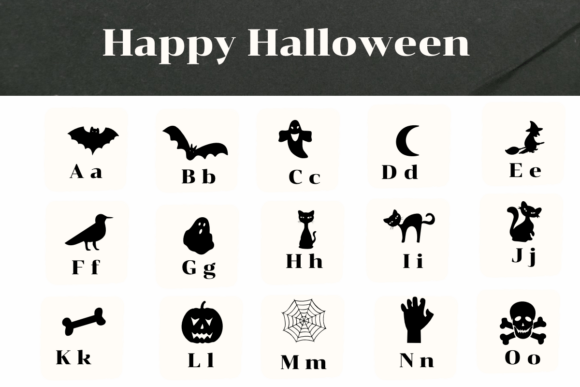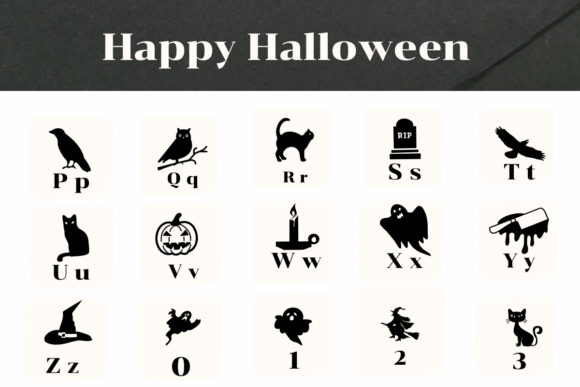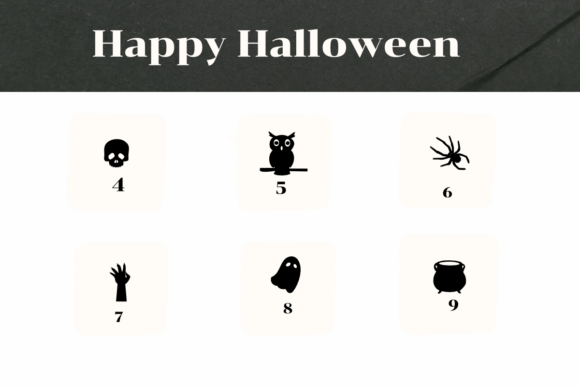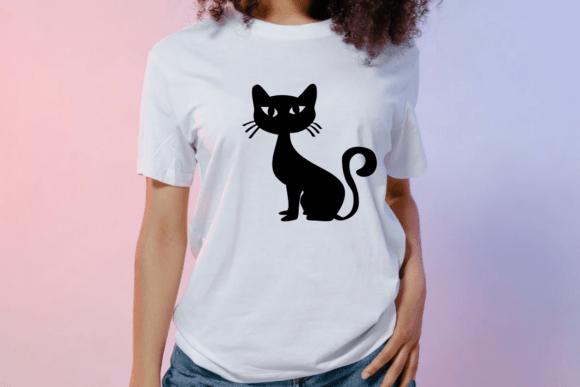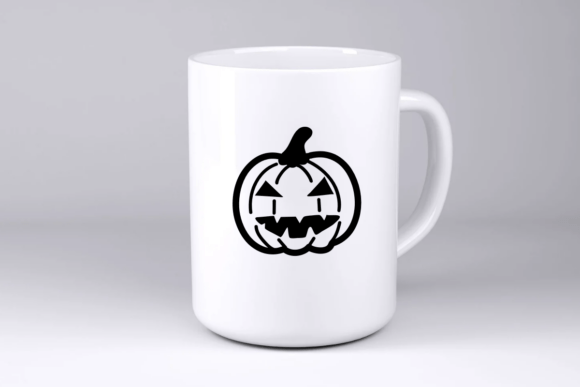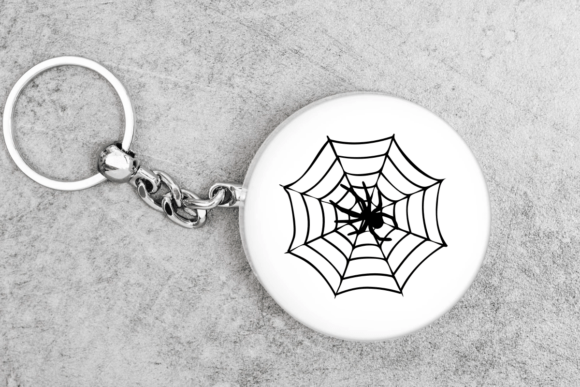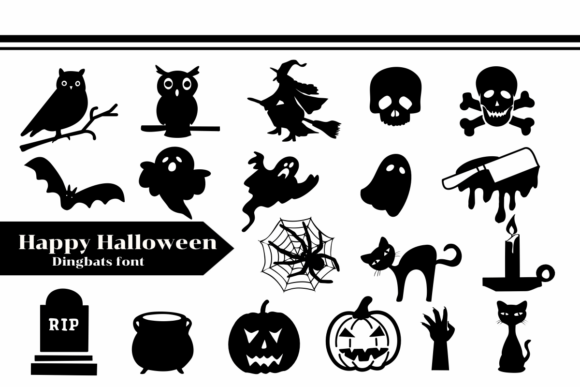
Happy Halloween Font: Elevate Your Seasonal Designs with Spooky Elegance
As the spookiest time of the year approaches, designers and crafters are on the lookout for the perfect elements to infuse their projects with a festive spirit. Introducing the Happy Halloween Dingbats Font, a curated collection of high-contrast vector glyphs designed to bring a touch of seasonal charm and creative flexibility to your work. This versatile font is a game-changer for anyone looking to add a professional edge to their Halloween-themed designs, whether for print, digital, or craft projects.
Clean and Versatile Design
The Happy Halloween Dingbats Font boasts clean, silhouette-style artwork with a sharp visual profile, making it optimized for both print and digital use. Each glyph is meticulously designed with consistency in stroke weight and visual balance, ensuring clear legibility at a range of sizes. This attention to detail makes the font perfect for a wide array of applications, from large-scale posters to intricate digital scrapbooking.
A Broad Variety of Halloween Icons
What sets the Happy Halloween Dingbats Font apart is its extensive variety of Halloween icons. The set includes traditional symbols of the season such as pumpkins, witches, and ghosts, as well as more stylized forms like dripping knives, tombstones, and skeletal figures. This comprehensive collection ensures that designers and crafters have access to a rich palette of icons to suit any project theme or style.
Optimized for Practicality and Creativity
The icons in the Happy Halloween Dingbats Font are designed with flat black fills and simplified contours, making them ideal for several specific uses:
- Cutting Machines: The high-contrast and clear design of the glyphs make them perfect for cutting machines, allowing for precise and clean cuts in vinyl, paper, or other materials.
- Sticker Sheets: Their design ensures that stickers made from these glyphs will be visually appealing and versatile for various applications.
- Greeting Cards: Add a personal and festive touch to your Halloween greeting cards with these elegant and spooky icons.
- Digital Scrapbooking: The Happy Halloween Dingbats Font provides an efficient way to add themed elements to digital scrapbooking projects, enhancing them with a seasonal flair.
- Rapid Asset Generation: For designers working on themed projects, this font enables the quick creation of assets, saving time and effort.
Efficient Design Workflow
One of the most significant advantages of the Happy Halloween Dingbats Font is the efficiency it brings to the design process. By providing direct access to scalable icons from your keyboard, it eliminates the need for separate image files or clipart sourcing. This streamlined approach not only saves time but also allows for a more integrated and cohesive design workflow.
Versatility in Use
Whether used in standalone compositions or as accents within broader layouts, the Happy Halloween Dingbats Font offers unparalleled versatility. Designers can incorporate these icons into a variety of projects, from Halloween party invitations and decorations to themed blog posts and social media graphics. The font’s flexibility makes it an indispensable tool for creatives looking to add a professional and festive touch to their work.
The Happy Halloween Dingbats Font is a valuable resource for designers and crafters seeking to elevate their Halloween-themed projects with a touch of spooky elegance and creative flexibility. Its curated set of high-contrast vector glyphs, designed for both print and digital use, offers a practical and artistic solution for a wide range of applications. By incorporating this font into your design toolkit, you’ll be well-equipped to create visually appealing and cohesive projects that capture the spirit of the season.
Embrace the Happy Halloween Dingbats Font in your creative projects and discover how it can enhance your design workflow, offering a seamless blend of style, functionality, and festive flair.